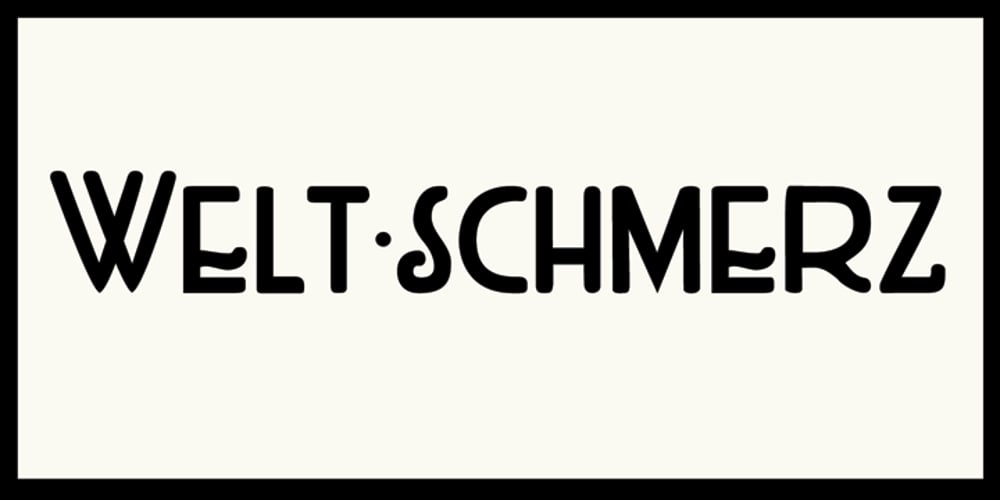
Weltschmerz Font Family was designed by David Kerkhoff and published by Hanoded. Weltschmerz contains 2 styles and family package options. Weltschmerz, world-weariness… I love the sound of it, so I chose this name for my new font. Weltschmerz font is a hand made Jugendstil typeface which was modeled on a 1910 poster from Austria. Weltschmerz is a classy typeface, a little melancholic, but with a positive uplift in the end. Weltschmerz comes with extensive language support.